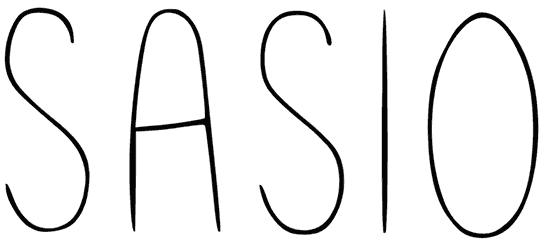
Sasio Font
Sasio is a wonderfully created handwritten font that emanates a convenient style. Its slim and casual appearance makes it a welcome addition to any interior decoration scheme, invitations, crafting social media posts, or…
Sasio is a wonderfully created handwritten font that emanates a convenient style. Its slim and casual appearance makes it a welcome addition to any interior decoration scheme, invitations, crafting social media posts, or designing company collateral, even though it has no numbers or lowercase letters.